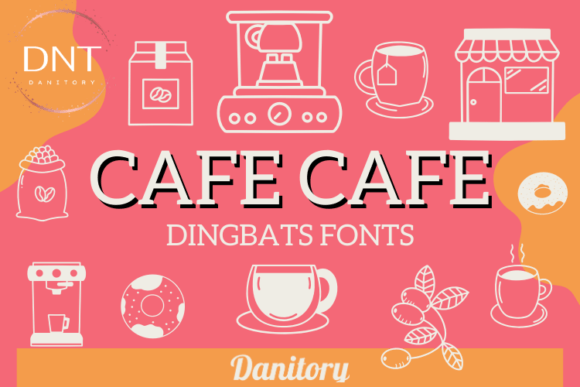
Cafe Cafe Font: The Perfect Blend of Fun and Realism
Are you looking for a font that can add a touch of fun and personality to your designs? Look no further than Cafe Cafe Font! This adorable dingbats font is packed with coffee elements that are sure to perk up your projects and leave a lasting impression on your audience.
What is Cafe Cafe Font?
Cafe Cafe Font is a unique and creative dingbats font that features a range of fun and quirky coffee-themed elements. From coffee cups and saucers to coffee beans and frothy milk, this font has everything you need to add a touch of whimsy and personality to your designs. Whether you’re working on a branding project, a packaging design, or a social media graphic, Cafe Cafe Font is the perfect choice.
Key Features of Cafe Cafe Font
- Cute and Lovely Design: Cafe Cafe Font features a range of adorable coffee-themed elements that are sure to delight your audience.
- Fun and Realistic Elements: The font includes a range of fun and realistic coffee elements, from coffee cups and saucers to coffee beans and frothy milk.
- Perfect for Creative Projects: Cafe Cafe Font is perfect for designers, crafters, and anyone looking to add a touch of personality to their projects.
- Easily Customizable: The font is easy to use and customize, making it perfect for a range of design applications.
Why Choose Cafe Cafe Font?
So why choose Cafe Cafe Font for your next design project? Here are just a few reasons why this font stands out from the crowd:
- Unique and Eye-Catching: Cafe Cafe Font is a unique and eye-catching font that is sure to grab attention and leave a lasting impression on your audience.
- Perfect for Food and Beverage Brands: If you’re working with a food and beverage brand, Cafe Cafe Font is a perfect choice. The font’s coffee-themed elements are sure to resonate with coffee lovers and foodies.
- Easy to Use: Cafe Cafe Font is easy to use and customize, making it perfect for designers of all skill levels.
- High-Quality Design: The font features a high-quality design that is sure to look great in any design application.
How to Use Cafe Cafe Font
Using Cafe Cafe Font is easy! Here are a few tips to get you started:
- Pair with a Bold Font: Pair Cafe Cafe Font with a bold font to create a fun and eye-catching contrast.
- Use for Headings and Titles: Use Cafe Cafe Font for headings and titles to add a touch of personality to your designs.
- Add to Your Design Toolkit: Add Cafe Cafe Font to your design toolkit to have a fun and creative font on hand for future projects.
Design Inspiration with Cafe Cafe Font
Need some design inspiration? Here are a few ideas to get you started:
- Coffee Shop Branding: Use Cafe Cafe Font to create a fun and eye-catching brand identity for a coffee shop or cafe.
- Food and Beverage Packaging: Use the font to create fun and eye-catching packaging for food and beverage products.
- Social Media Graphics: Use Cafe Cafe Font to create fun and engaging social media graphics that are sure to grab attention.
Cafe Cafe Font is a unique and creative dingbats font that is perfect for designers, crafters, and anyone looking to add a touch of personality to their projects. With its fun and realistic coffee-themed elements, this font is sure to perk up your designs and leave a lasting impression on your audience. So why wait? Download Cafe Cafe Font today and start creating!